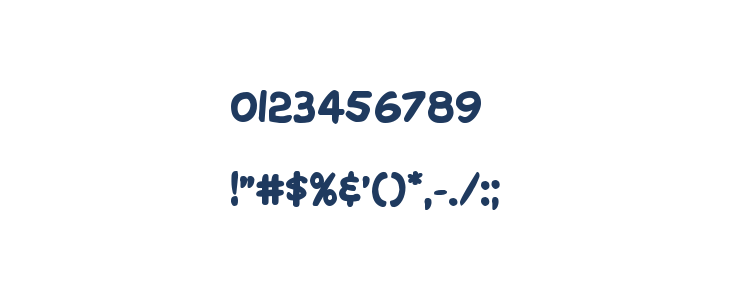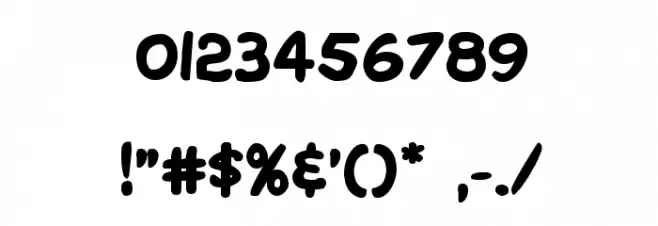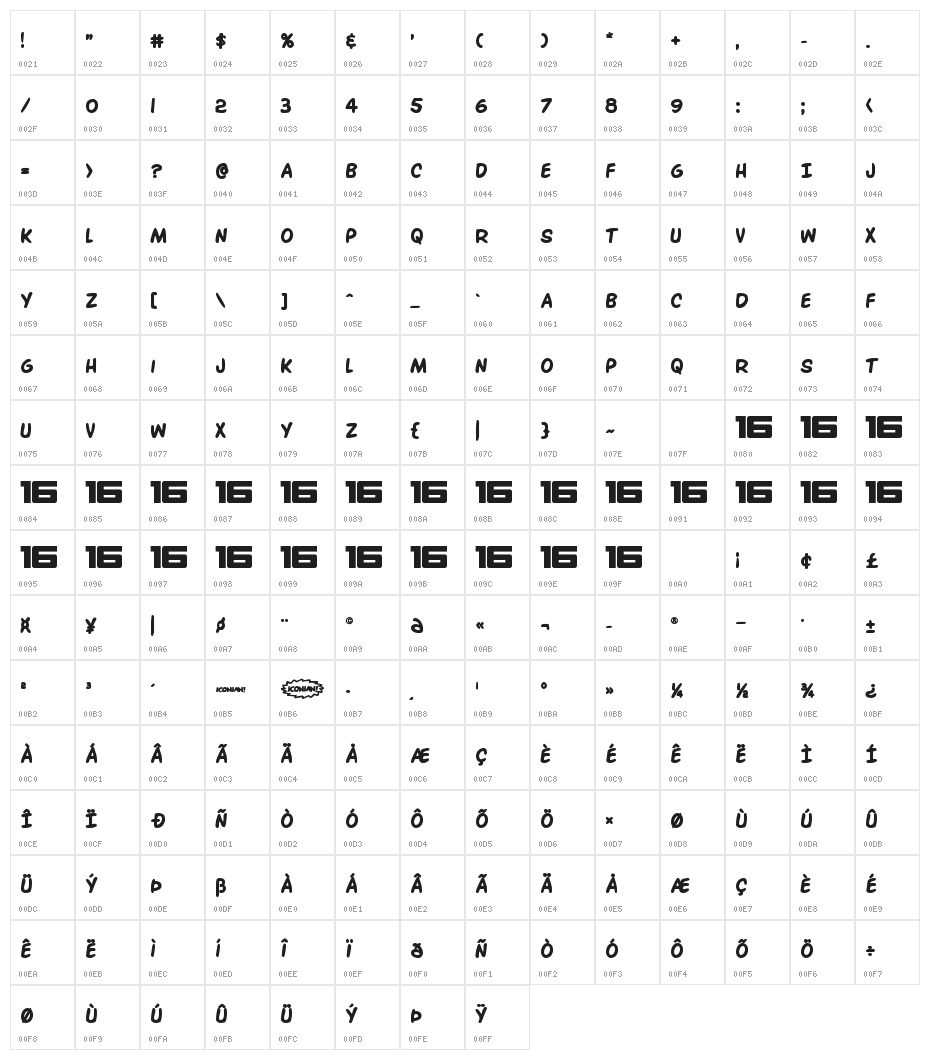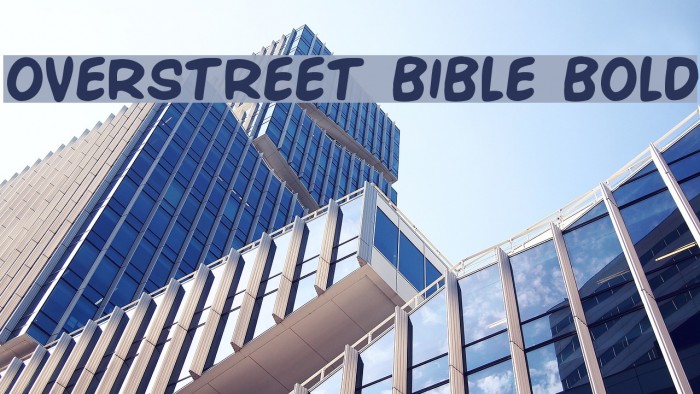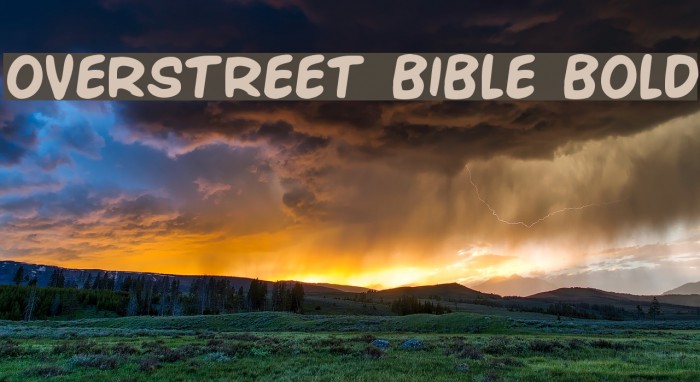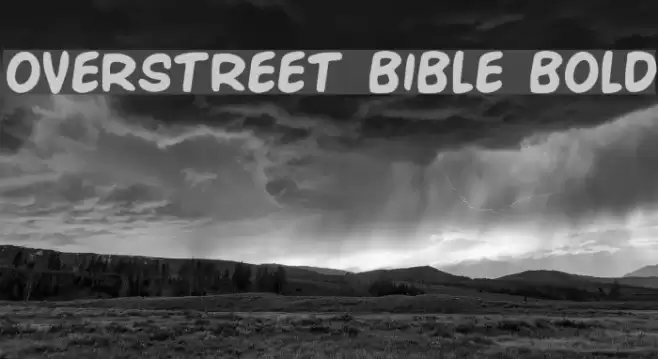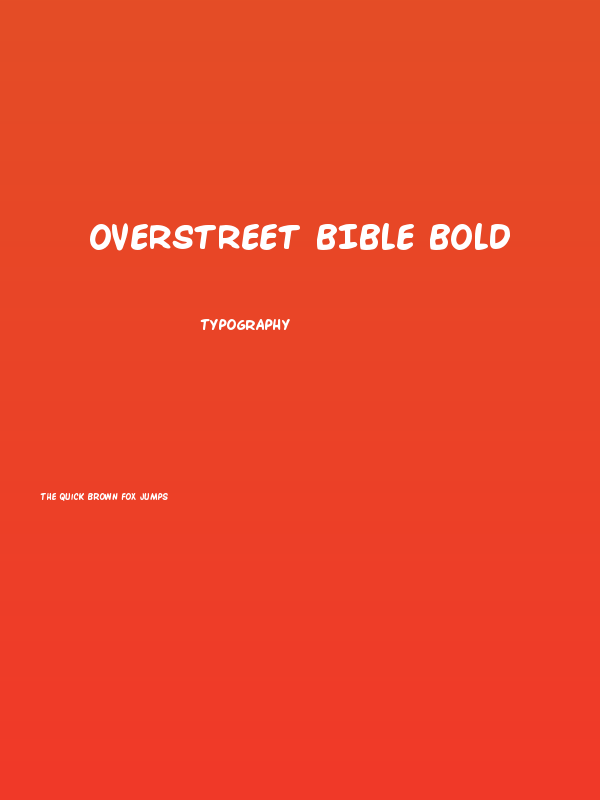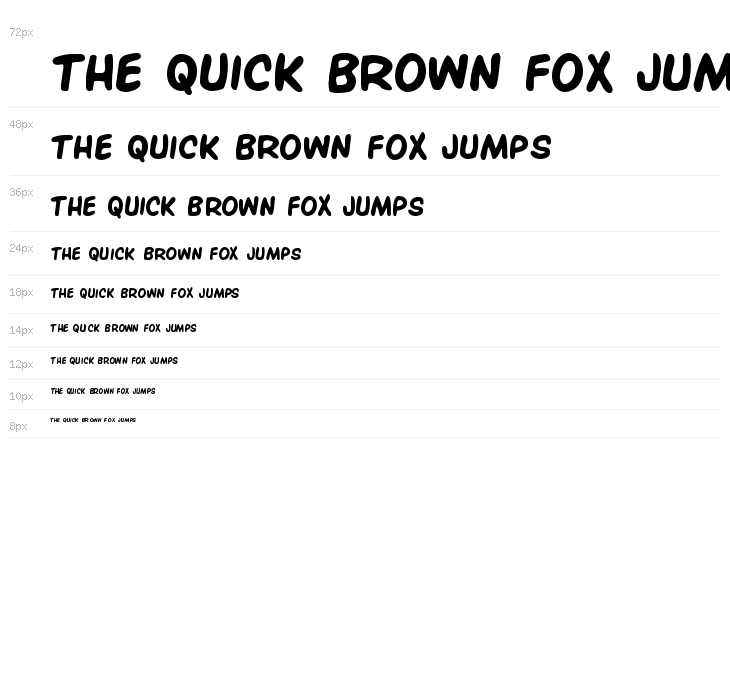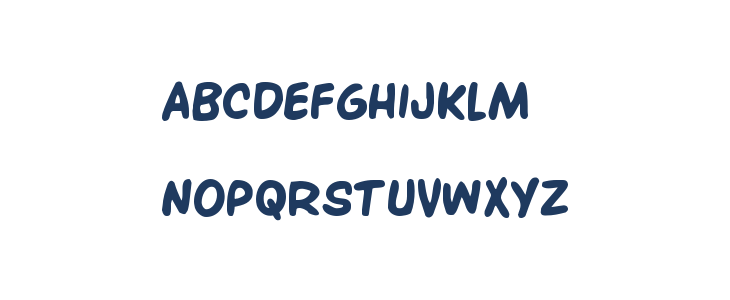
Overstreet Bible Bold Font
Overstreet Bible Bold Description
This font features a bold and playful style with rounded edges and a slightly informal appearance. The characters are thick and well-defined, giving a strong presence on the page. The uppercase and lowercase letters maintain a consistent weight, contributing to a cohesive look. The numerals are clear and easy to read, matching the overall boldness of the alphabet. Special characters are designed with the same playful and bold characteristics, making them stand out effectively. This font is suitable for projects that require a fun and approachable aesthetic.
| Proposed Projects | Ideal for children's books, comic strips, playful branding, and casual invitations. |